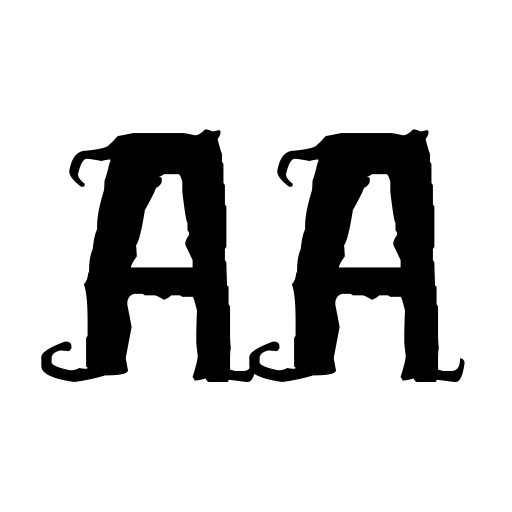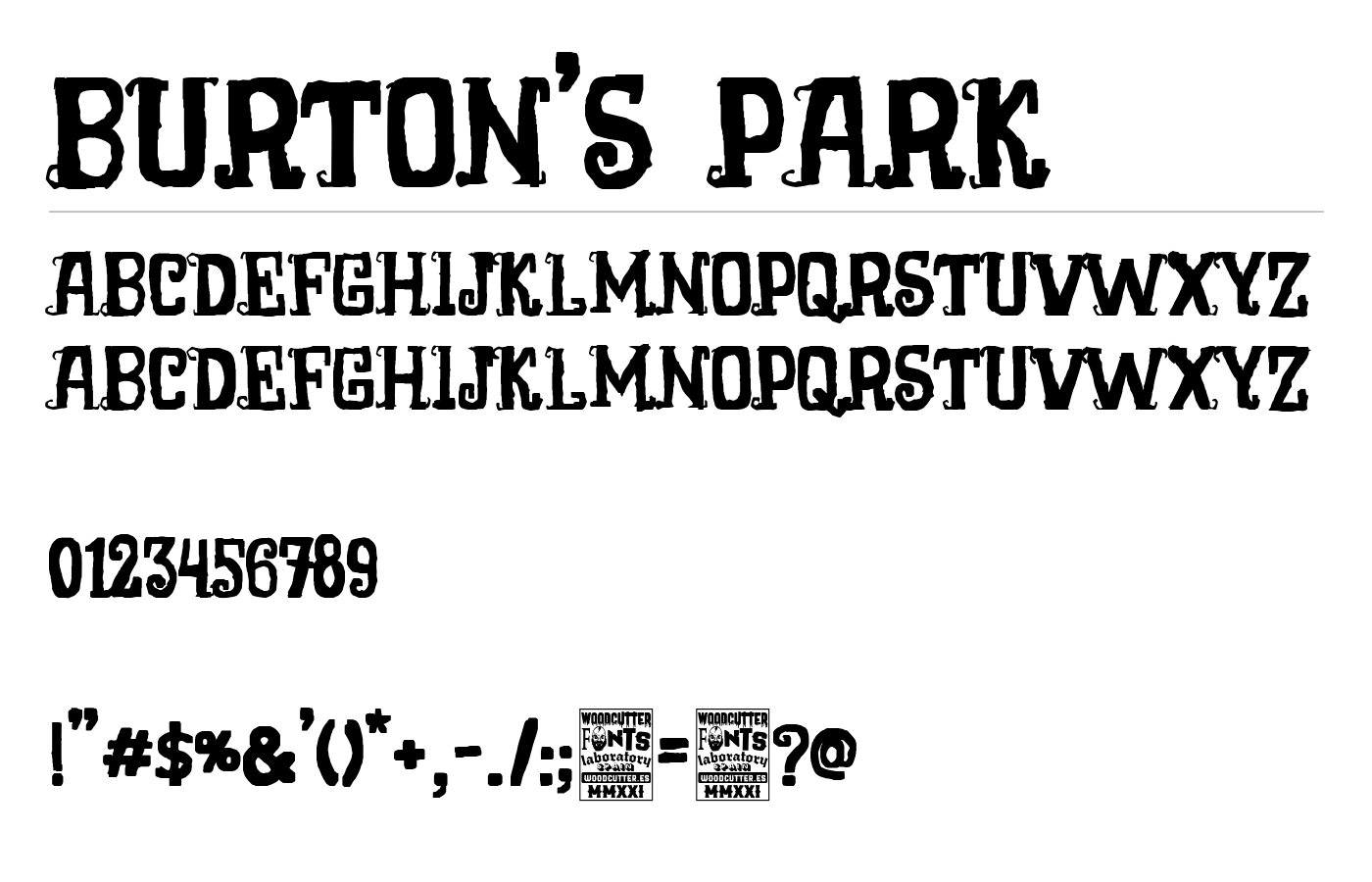
Burton's Park is a bold, condensed serif font with a rugged, vintage Western feel. Its uneven, textured strokes and distinctive bracketed serifs give it a handcrafted, rustic character, making it perfect for designs that want to convey a strong, old-time charm. This font works well in headlines, posters, and branding where a bold, adventurous, and nostalgic impression is desired.
Burton's Park Font
About Burton's Park Font